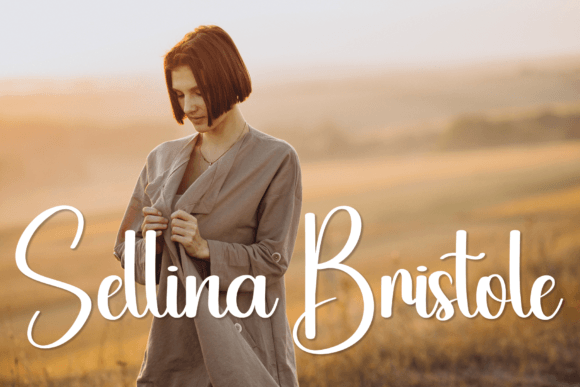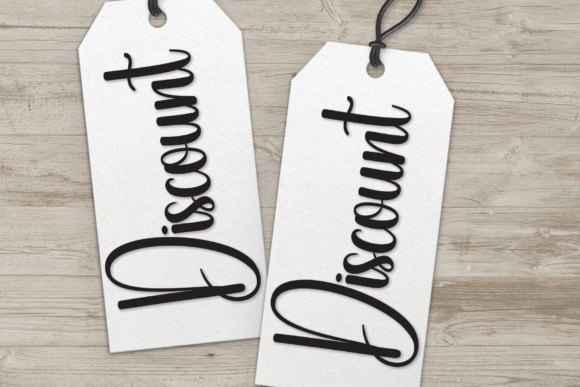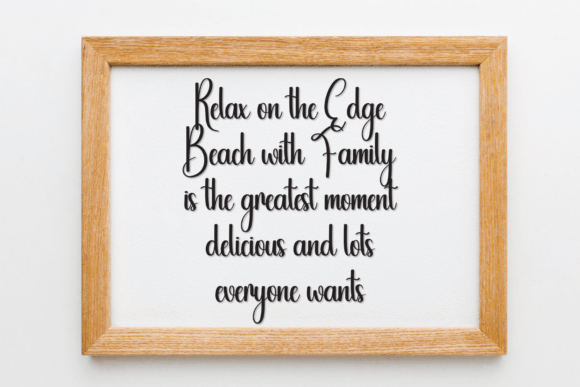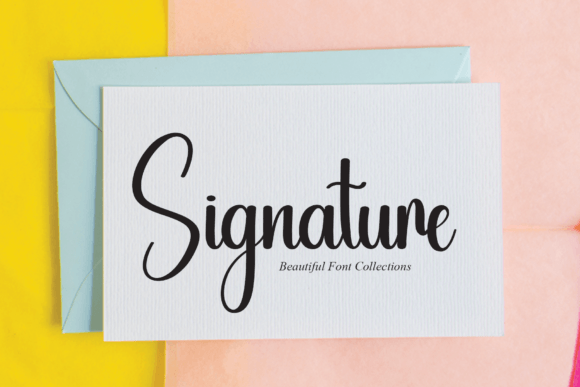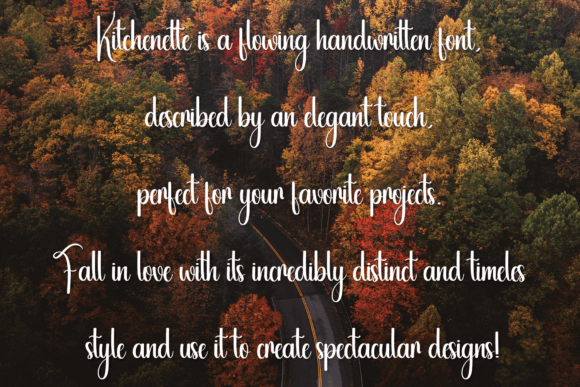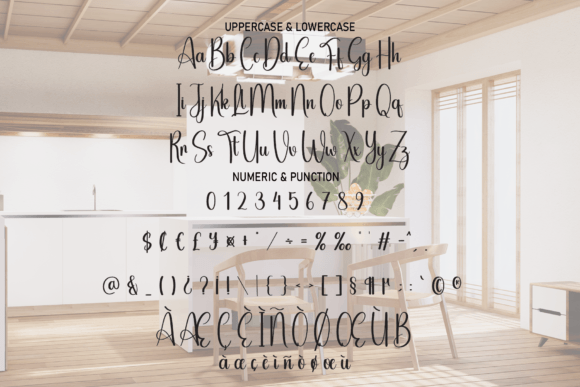
Introduction to Kitchenette Font
Kitchenette is a flowing handwritten font, described by an elegant touch, perfect for your favorite projects.
Key Features of Kitchenette Font
Why Choose Kitchenette Font?
Kitchenette Font offers exceptional quality and versatility, making it a valuable addition to your design toolkit. Whether you’re creating for personal projects or commercial use, Kitchenette Font delivers professional results.